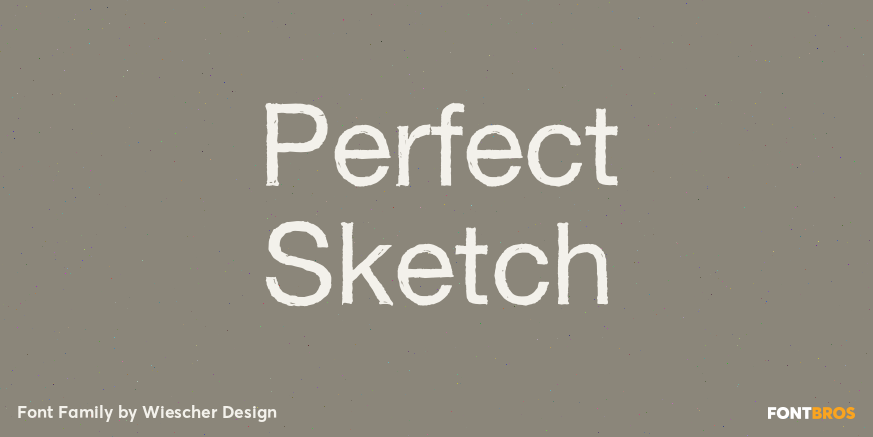
Perfect Sketch
About Perfect Sketch
Perfect Sketch is a classic Grotesk Typeface drawn with care by hand to imitate the way we used to sketch headlines before the ascent of computer based design. I sell 4 for the price of less than three. Yours Gert Wiescher